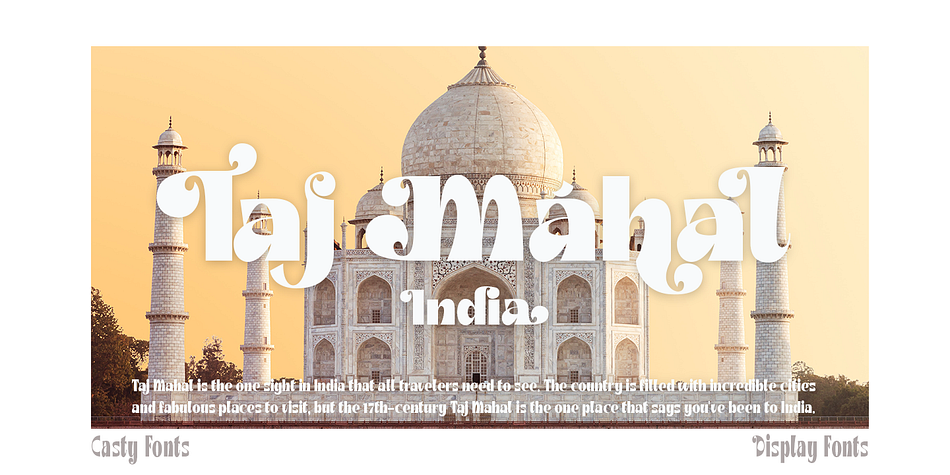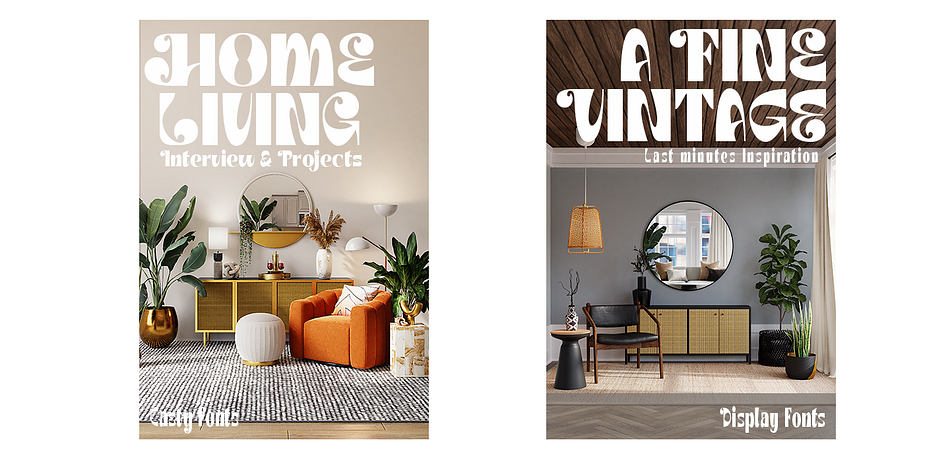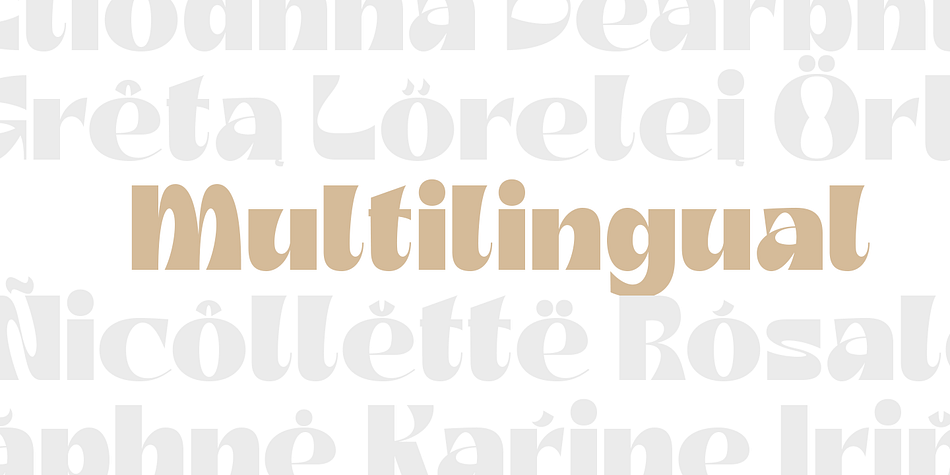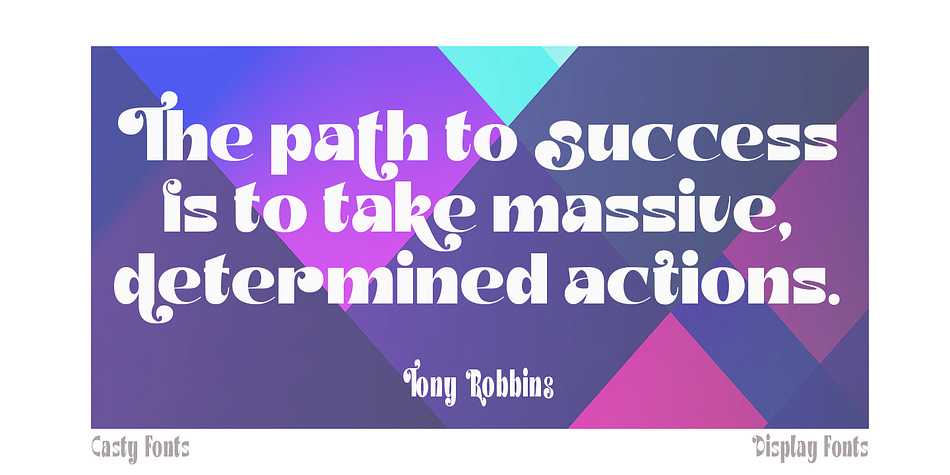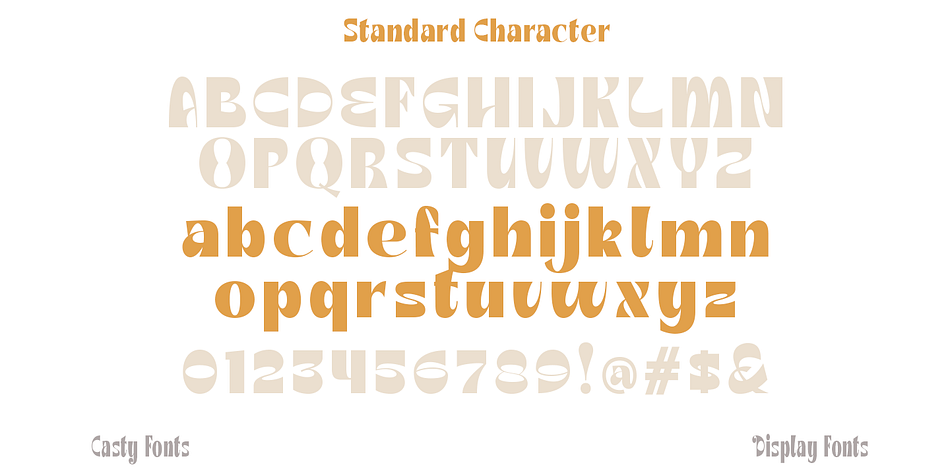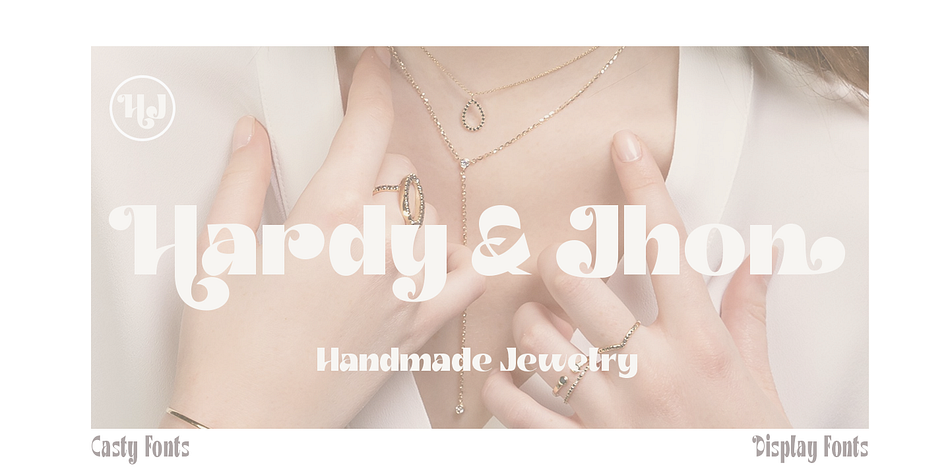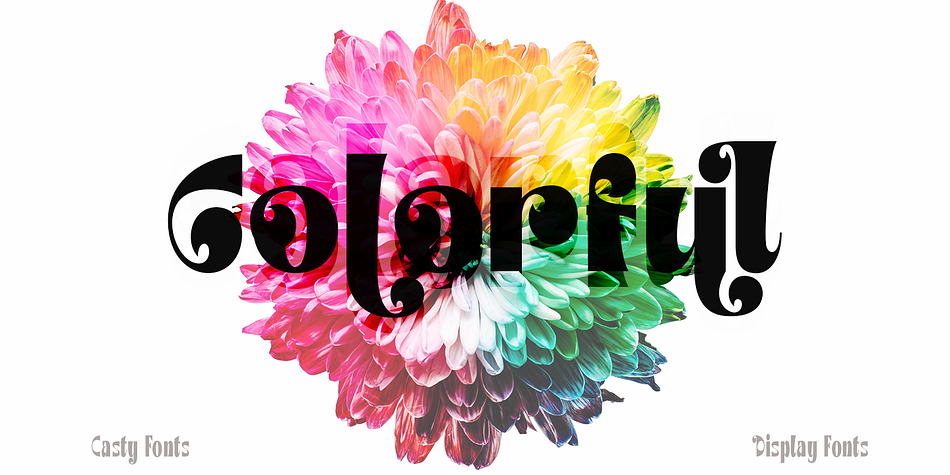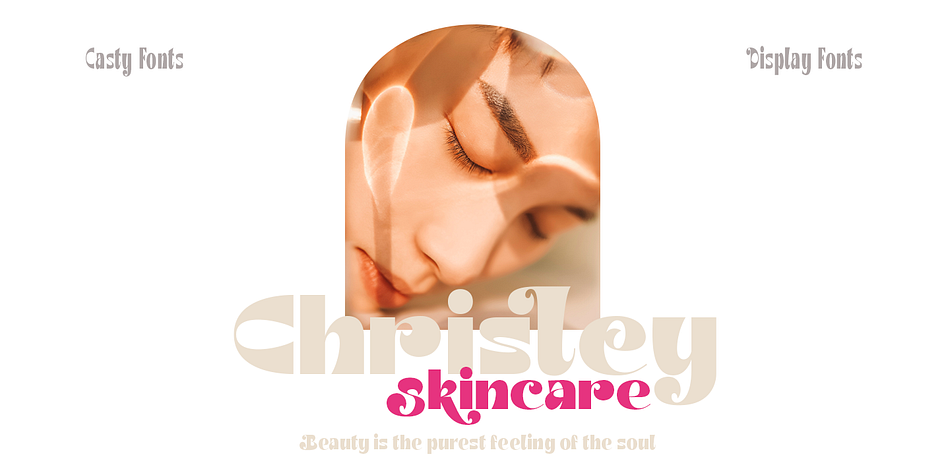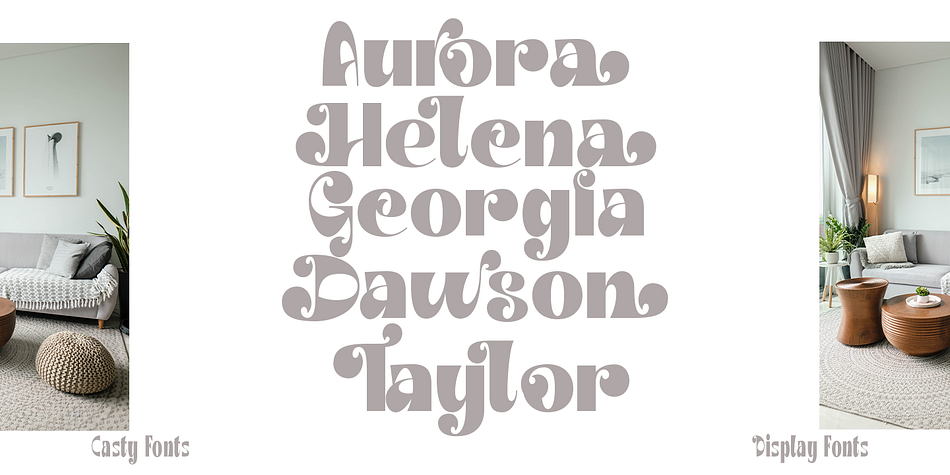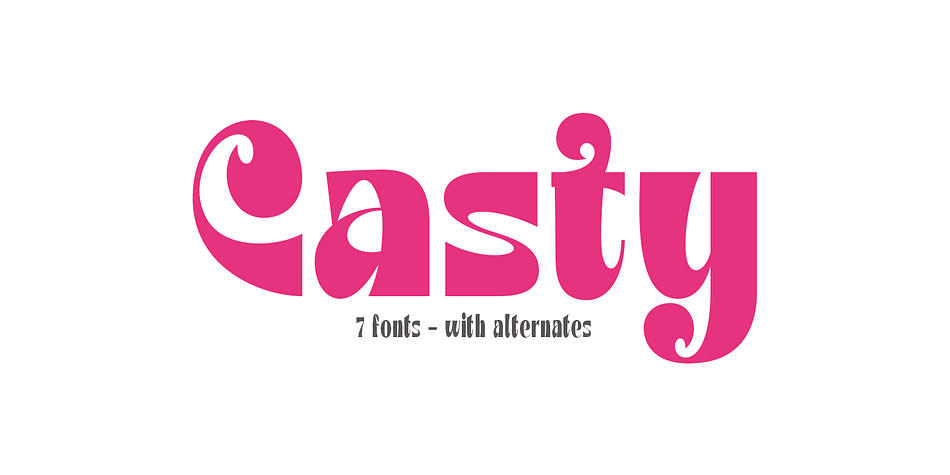
Designed by Suandana Ipandemade, Casty is a display sans and retro font family. This typeface has seven styles and was published by madeDeduk.
Introducing Casty, use this font for any branding, product packaging, invitation, quotes, t-shirt, label, poster, logo etc.
- Alternative
- Ligature